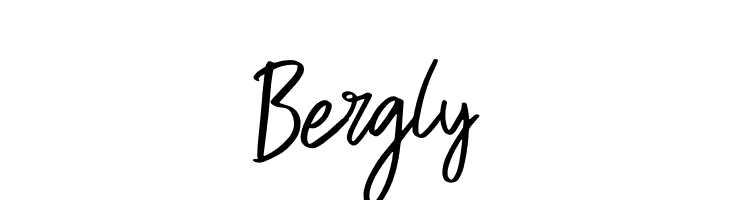
( Fonts by zainstudio )
A modern, handwritten font with an artistic and fluid style.
( Fonts by Skiiller Studio )
A fluid and elegant handwritten script with a natural, personal touch.
( Fonts by Johan Wibisono )
A playful, handwritten font with a bold and friendly appearance.
( Fonts by Skiiller Studio )
A bold, handwritten font with a playful and energetic style.
( Fonts by priandhani )
A playful, informal handwritten font with a whimsical and dynamic style.
( Fonts by Skiiller Studio )
A lively and expressive handwritten font with fluid strokes.
( Fonts by Biham Santoso )
An elegant, flowing script font with a natural handwriting style.
( Fonts by Skiiller Studio )
A bold, handwritten font with a dynamic and energetic style.
( Fonts by Skiiller Studio )
A bold, expressive handwritten font with tall, narrow letters and fluid strokes.
( Fonts by Skiiller Studio )
A bold, handwritten font with a playful and energetic style.